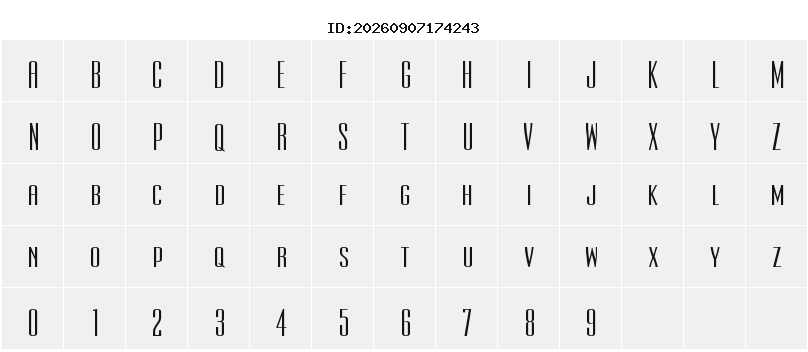
UltraCondensedSansSerif Preview
• Font Name: UltraCondensedSansSerif
About UltraCondensedSansSerif.ttf
UltraCondensedSansSerif.ttf is a modern, elegant sans-serif font designed for ultimate readability and visual harmony. Perfect for branding, headlines, web design, and print materials.